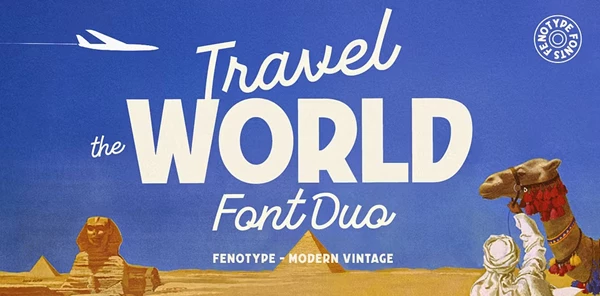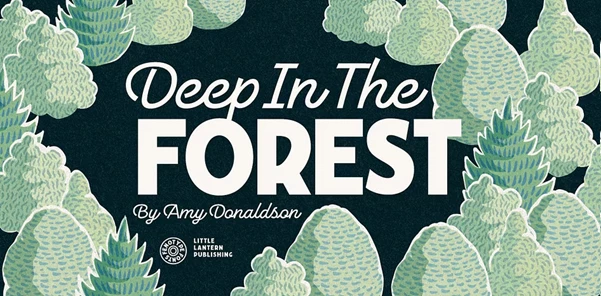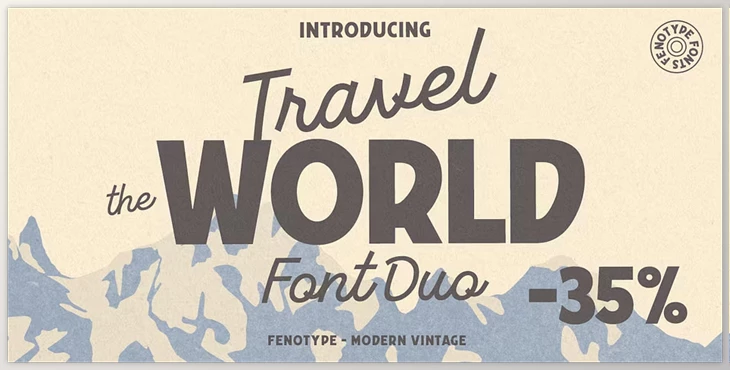
Travel The World is a Font Duo that was designed by Emil Bertell and published by Fenotype. It is a contemporary take on 20th-century travel poster design. It contains a brush script with a big x-height and a chunky sans with Art Nouveau influences. The script features decorative uppercase initials and includes Small Caps for all-caps text along with multiple OpenType options such as Swash and Stylistic Alternates. This font is ideal for display purposes, such as posters, packaging, branding, and book covers. Both styles function nicely on their own but complement other typefaces very well.